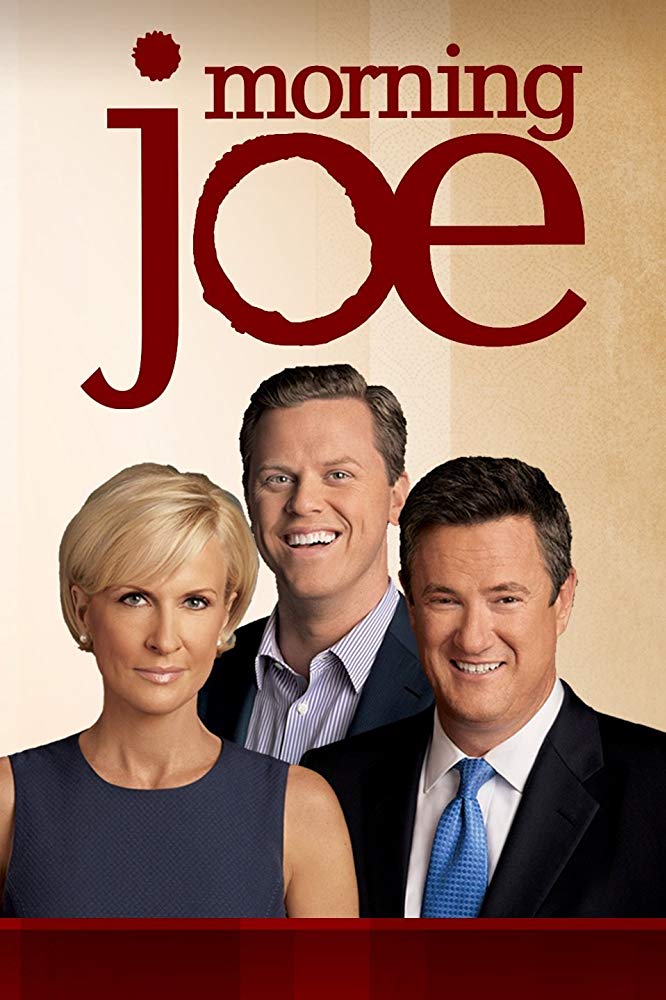
Morning Joe Font
The talk show's title features a modified version of the Candida font, with its Roman designed by Jakob Erbar and its italic completed by Walter Höhnisch. You can find further information about the font here.